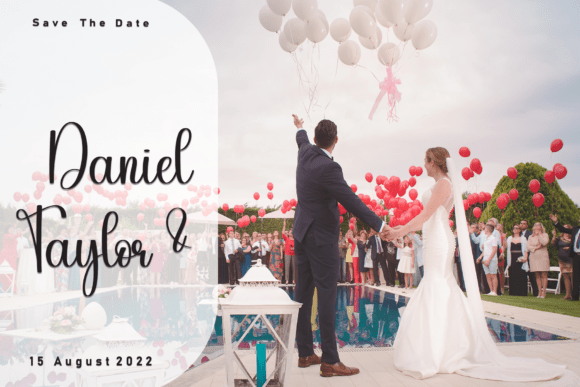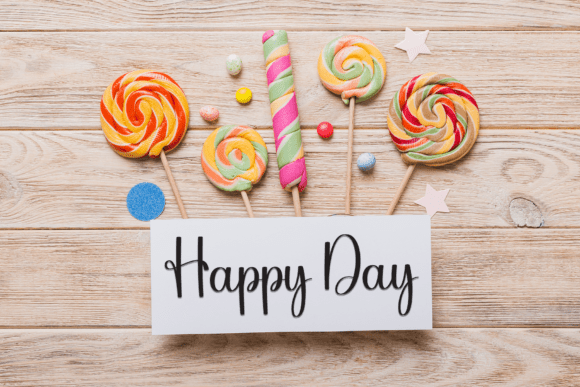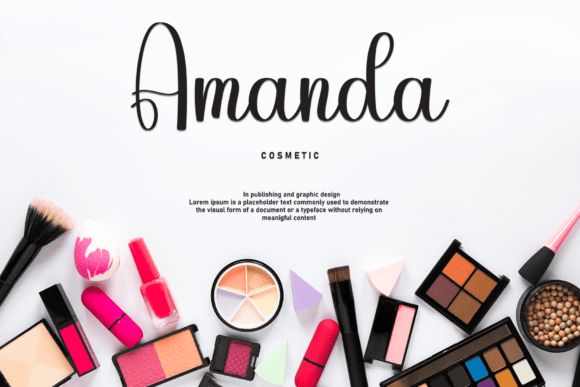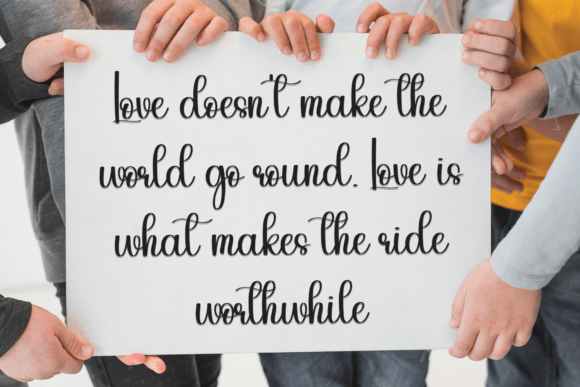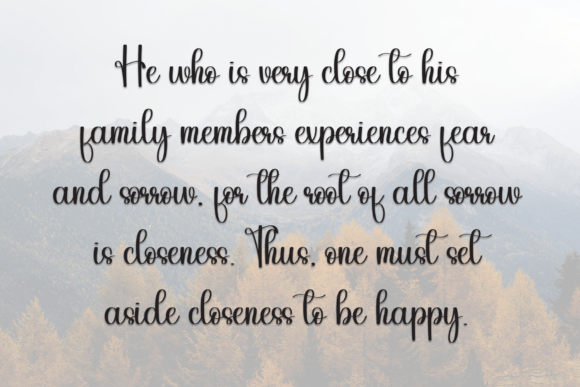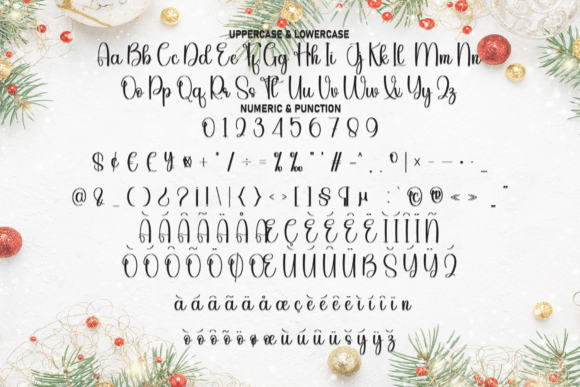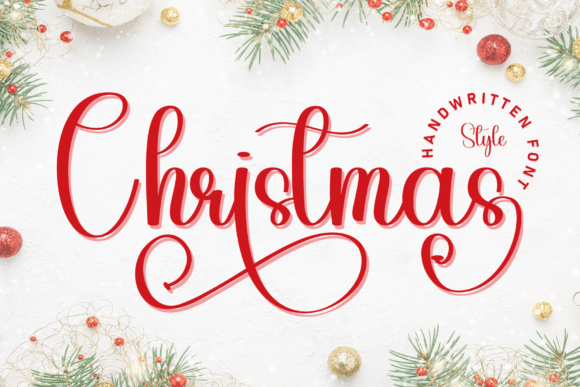
Succumb to the Magic of Christmas Font: A Handwritten Typeface like No Other
Are you tired of using the same old fonts for your creative projects? Do you want to add a touch of personality and whimsy to your designs? Look no further than our extraordinary Christmas Font, a handwritten typeface that is sure to captivate and bewitch. Filled with vivacity and an irresistible allure, this font is an eyeful of ecstasy that will breathe life into your personal work.
The Perfect Font for Whimsical Designs
Our Christmas Font is laced with an inviting warmth and amicability, making it the perfect choice for a variety of creative pursuits. Whether you’re designing whimsical wedding invitations, heartwarming notes, or festive holiday cards, this font radiates an energetic, spirited charm that is sure to leave an unforgettable mark. The font’s lively stroke dances across your canvas effortlessly, adding a touch of magic to every project.
Meticulously Crafted for Maximum Impact
Our exclusive handwritten display font has been meticulously crafted to captivate and bewitch. Every letter, every curve, and every flourish has been carefully designed to create a truly unique and mesmerizing effect. Whether you’re a designer, crafter, or DIY enthusiast, this font is sure to amplify your creative pursuits and help you stand out from the crowd.
The possibilities are endless with our Christmas Font. Use it to create:
- Whimsical wedding invitations that set the tone for a magical day
- Heartwarming notes that speak straight to the heart
- Festive holiday cards that spread joy and cheer
- Eye-catching posters and flyers that grab attention
- Beautiful journal pages and planners that inspire creativity
Why Choose Our Christmas Font?
So why choose our Christmas Font over other fonts on the market? Here are just a few reasons:
- Unique and exclusive: Our font is one-of-a-kind, ensuring that your designs stand out from the crowd
- Handwritten with love: Every letter has been carefully crafted with love and attention to detail
- Versatile: Use it for a variety of creative pursuits, from wedding invitations to holiday cards
Get Ready to Fall in Love with Our Christmas Font
- Font type: Handwritten display font
- Language: English and other languages that support Latin script
- Characters: Includes uppercase and lowercase letters, numbers, and punctuation marks
In conclusion, our Christmas Font is a truly unique and extraordinary handwritten typeface that is sure to captivate and bewitch. With its mesmerizing beauty, vivacity, and irresistible allure, it’s the perfect choice for designers, crafters, and DIY enthusiasts who want to add a touch of personality and whimsy to their creative pursuits. Download our Christmas Font today and experience the magic for yourself.